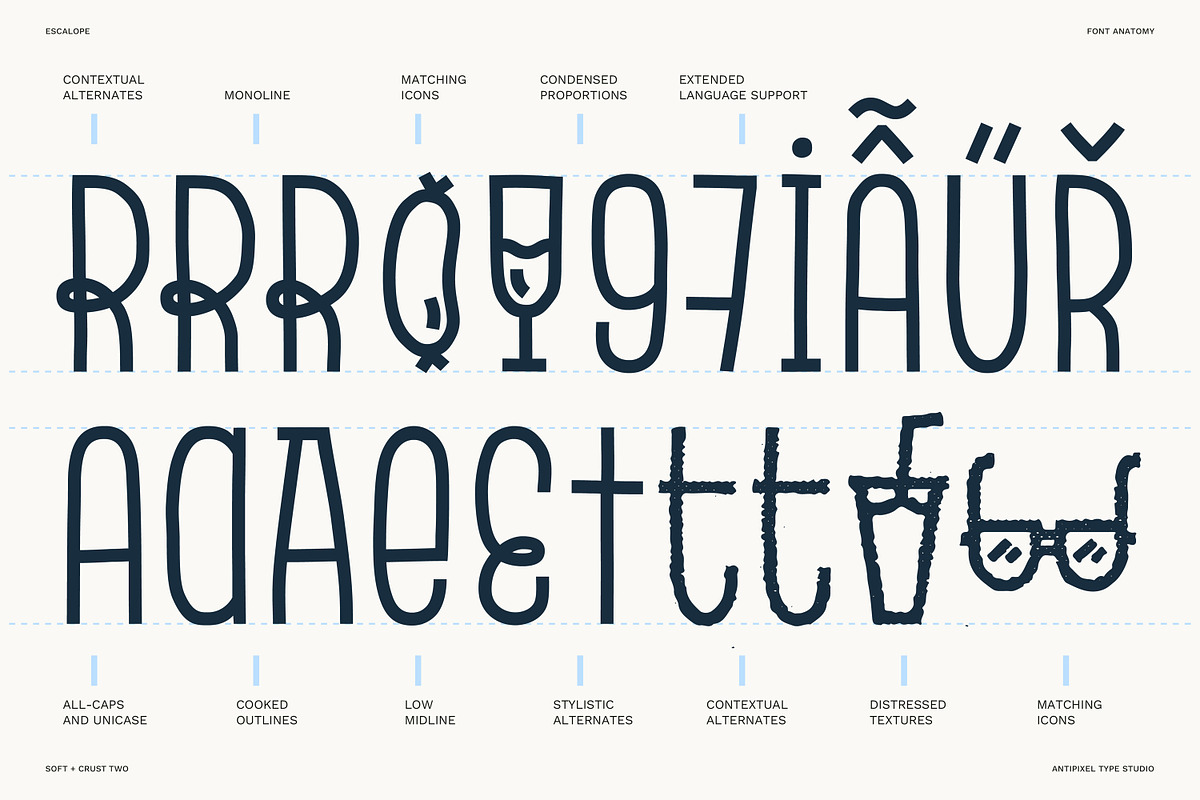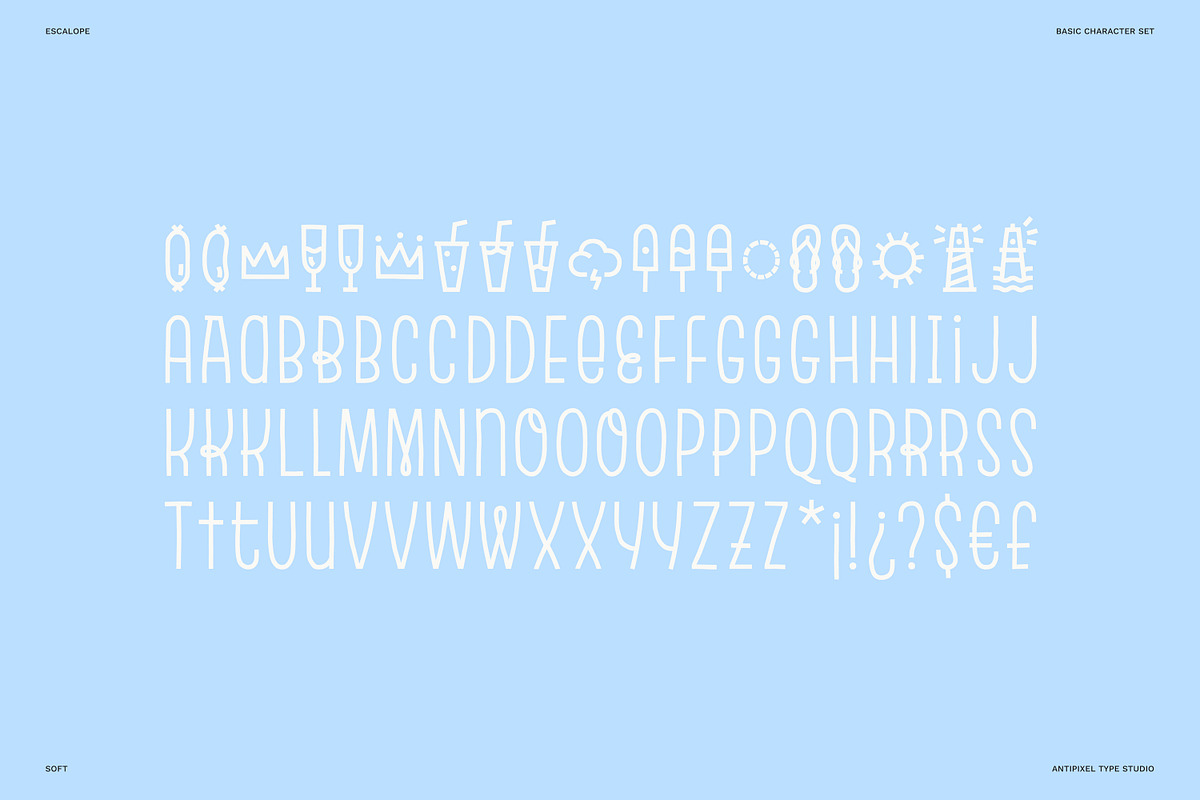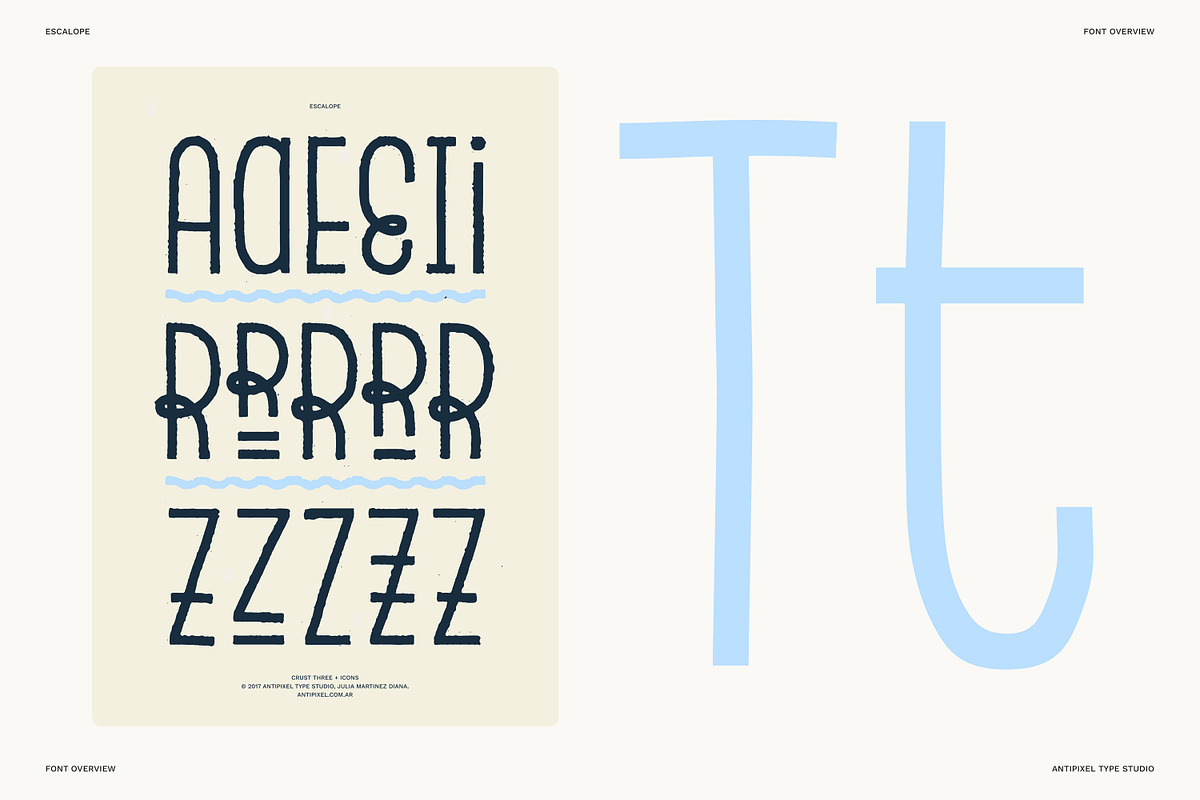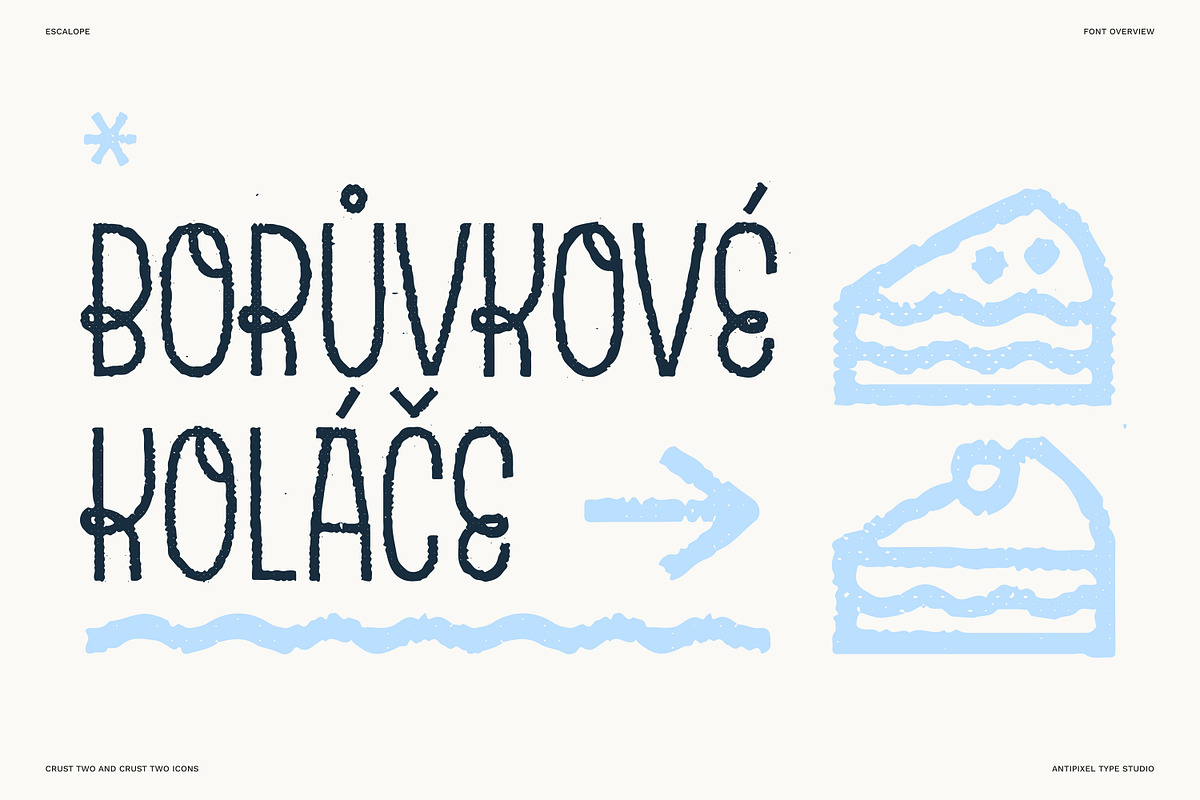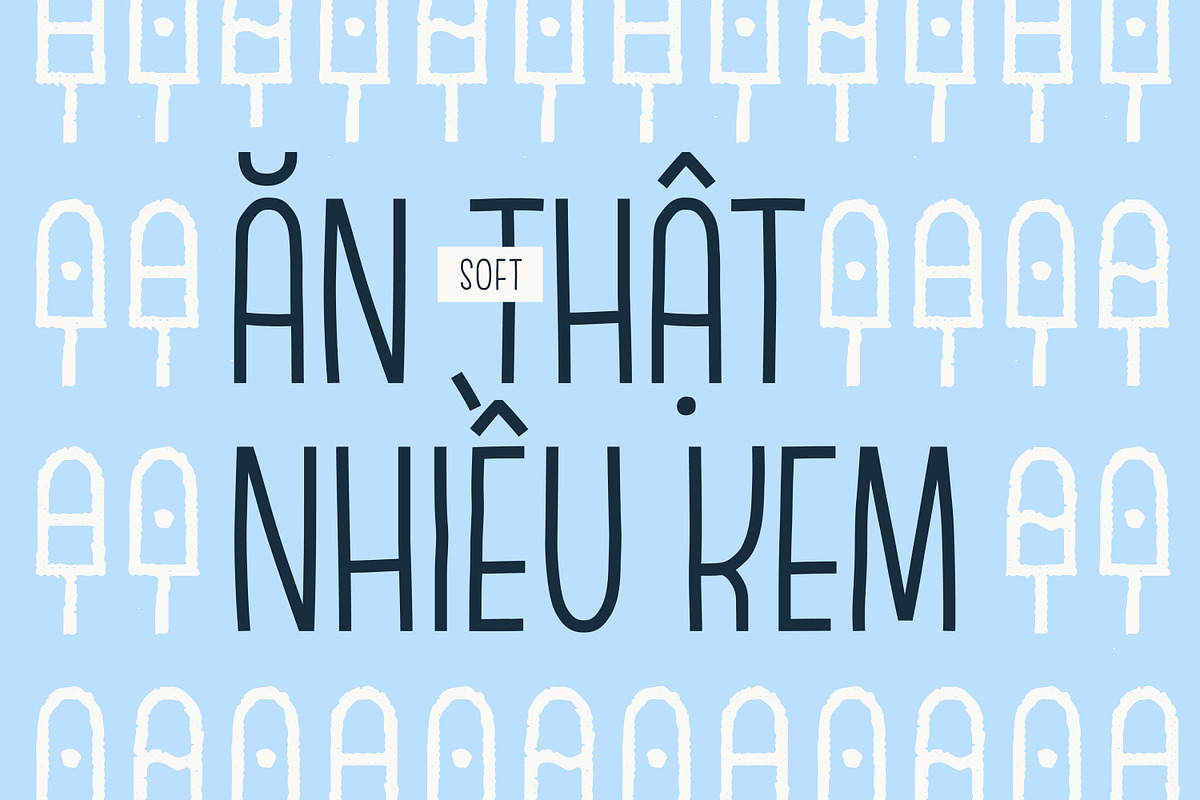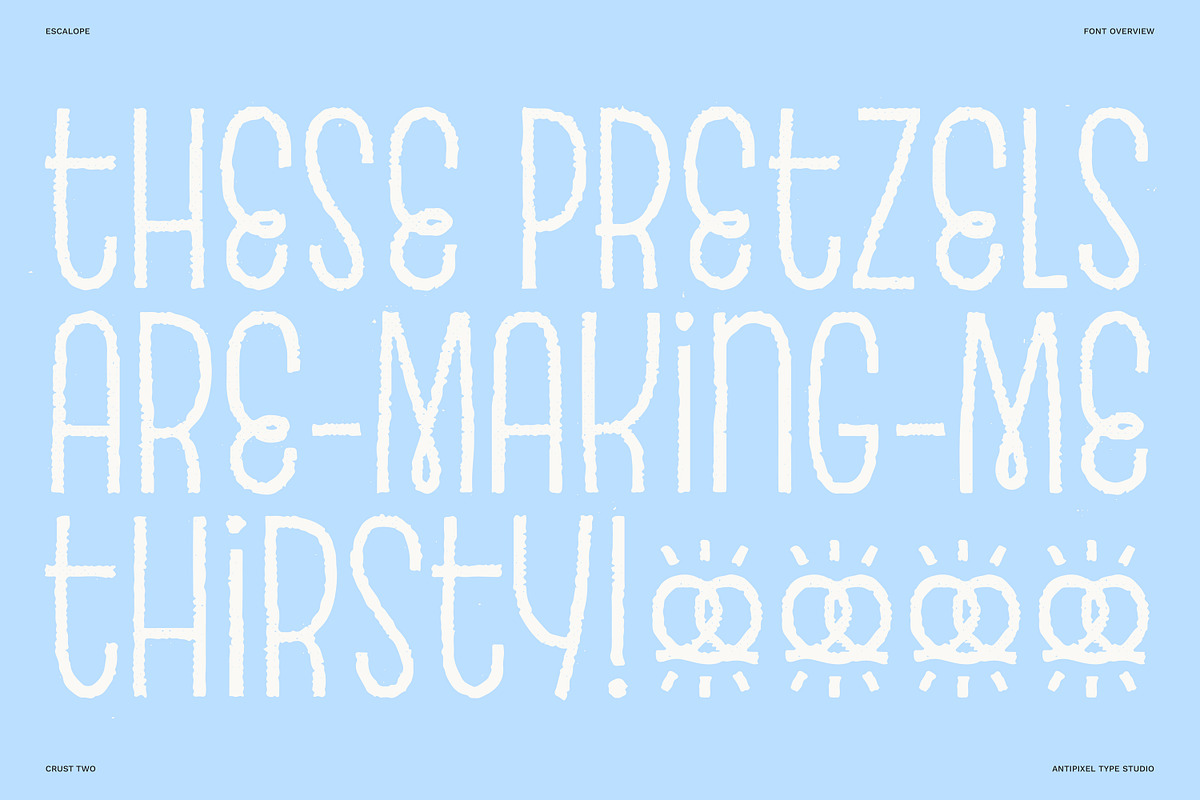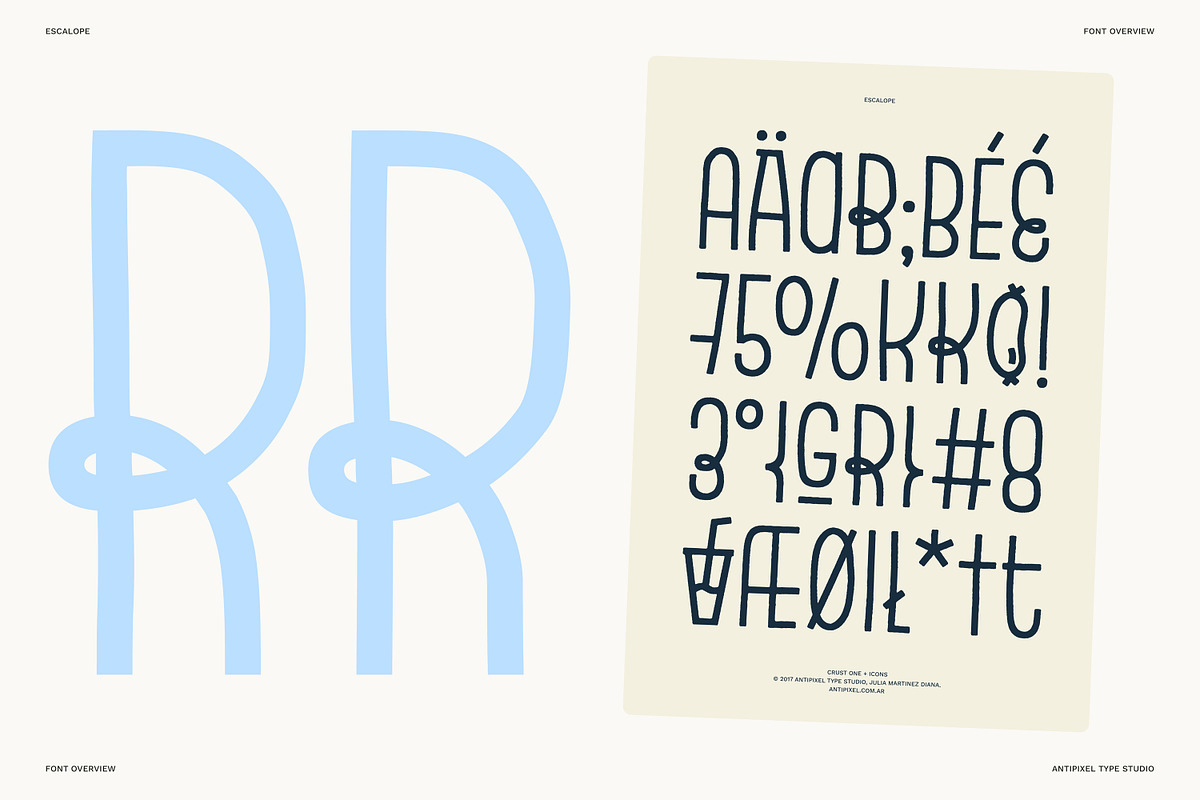
Escalope, a display handwritten font
Escalope, a display handwritten font by Antipixel Type Studio is a font selected for branding, posters, packaging, typography.
- Escalope includes a set of 150 icons consistent with the four styles of the typeface.
- Thanks to the Contextual Alternates, the alphabets are automatically replaced, in turn, repeatedly to avoid the same letterforms and texture
- SS01 has underlined characters, SS02 has double-underlined characters, and SS03 has a mixture of graphic ornaments.
- If the Contextual Alternates are running, the Stylistic Sets will alternate automatically.
Why Escalope, a display handwritten font is worth a look
Escalope, a display handwritten font by Antipixel Type Studio fits naturally into Branding, posters, packaging, typography.